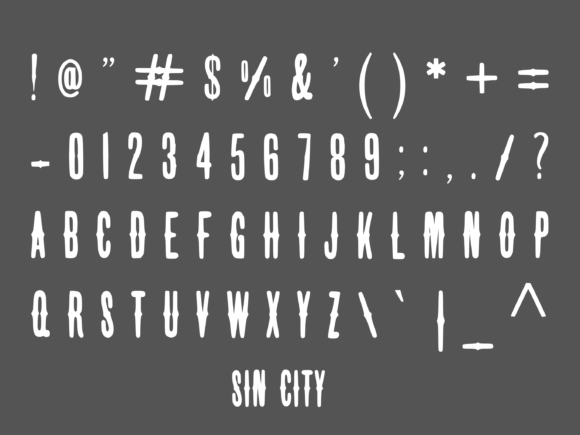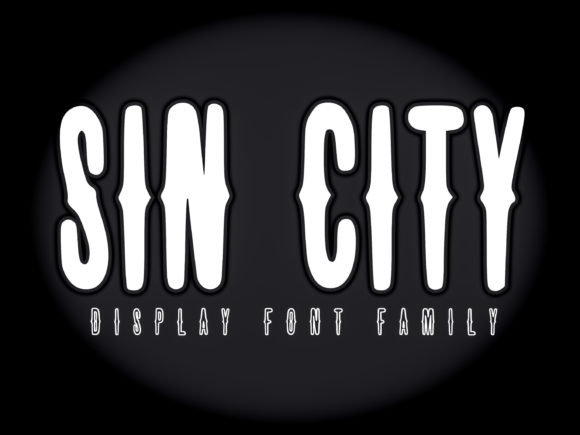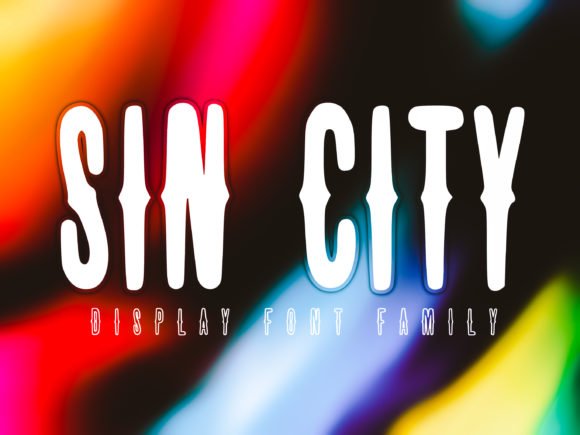
Introduction to Sin City Font
Sin City is a cool, bold and assertive display font.
It is suitable for logotype, headline font, in corporate identity, brand identity, apparel industry, poster, music, movie, game, magazine, book, comic, cartoon, YouTube, Instagram, website, or any of your creative design projects .